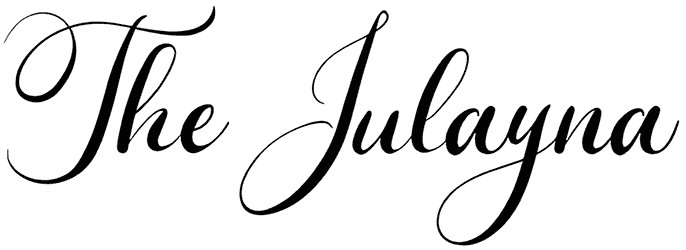
The Julayna Font
The Julayna is a modern and classy script font for you to bring your creativity to life. It involves distinctive initial swashes and a unique texture that gives your design elegance and freshness, but it’s a bit illegible. This calligraphy font doesn’t include any punctuation. It’s a perfect option for greeting cards, fashion magazines, wedding invitations, feminine branding, and other romantic concepts.